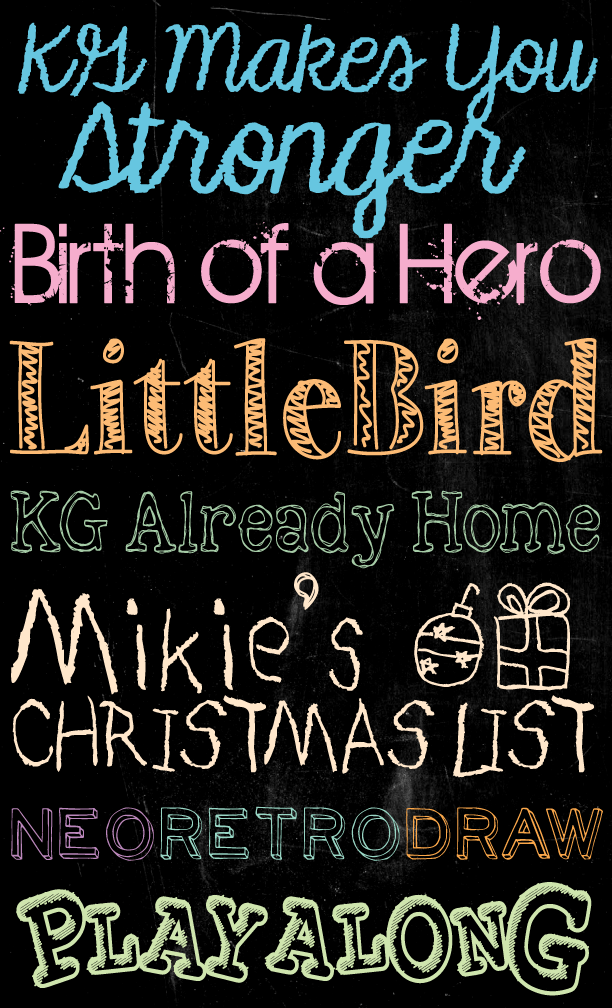
It is a handwriting font created in 2012 and has been downloaded 474837 times. The combination of the taxane gothic typefaces’ conventional because of humanistic elements. It's possible to change the colors and replace all the elements after we download among them.
My Favorite Free Chalkboard Fonts A.
It's possible to change the colors and replace all the elements after we download among them. Some designers call them chalk fonts, some chalkboard fonts, chalk crayon fonts or even chalk hand lettering.the name doesn’t change the essence, so you may call them as you like. Introducing to you chalk hand lettering pack font.
Chalk hand lettering font families. Download 49 free fonts in the chalkboard category for windows and mac. This font is one the best chalk font that is available right now in the market.